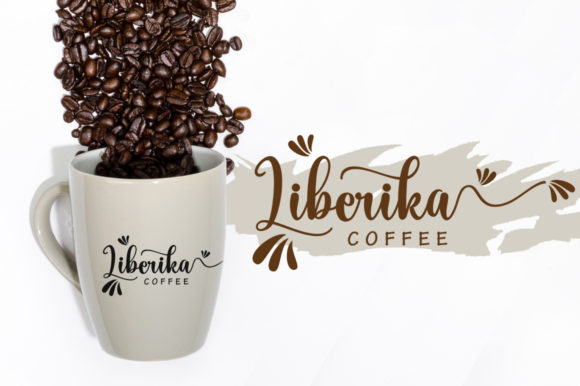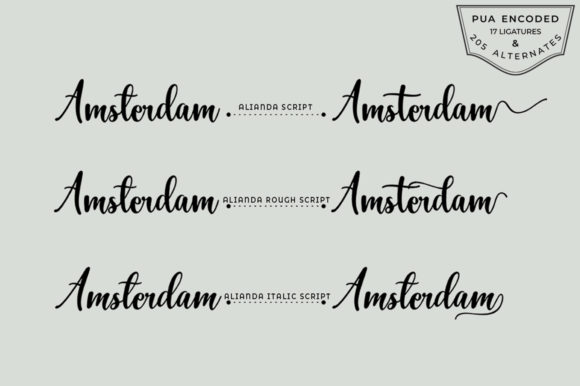
Alianda Script Font
db-ku.com - Script & Handwritten -- Alianda Script is a beautiful and modern calligraphy font with a charming flow. This font has a ton of swashy, swirly embellishments for appealing and quirky typography, and looks pleasant when combined with other handwritten fonts.